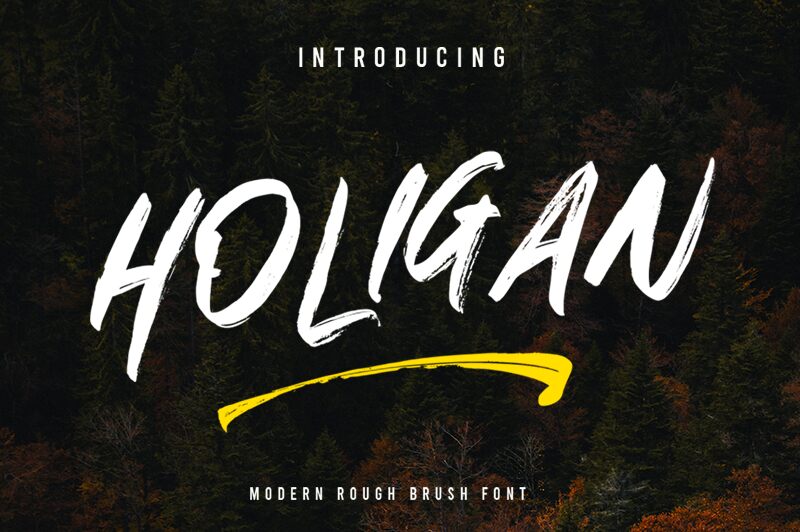
Holigan, a captivating brush font crafted by Vultype, exudes a dynamic and expressive personality. With its bold, fluid strokes and seamless transitions, this font effortlessly conveys a sense of movement and energy, inviting the viewer to engage with its raw, unrestrained aesthetic. The organic, hand-drawn quality of Holigan lends an authentic, artisanal feel, making it a compelling choice for projects seeking a touch of rustic charm and individuality.
Holigan's versatility makes it a valuable asset in a wide range of design applications. From branding and packaging to editorial layouts and signage, this font's distinct character can elevate and breathe life into any creative endeavor. Its bold, attention-grabbing nature makes it an excellent choice for headlines, logos, and other display text, while its legibility ensures readability even in smaller sizes.